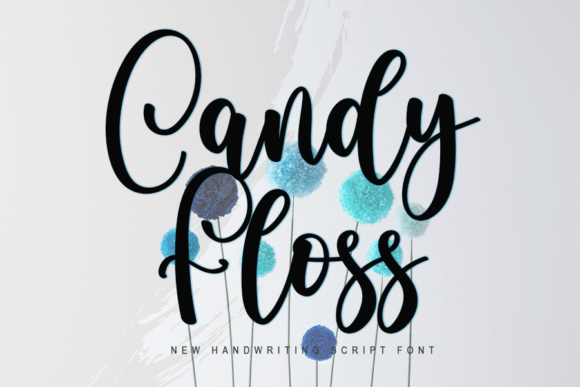
The Sweetest Font You’ll Ever Use: A Deep Dive into Candy Floss
I’ll never forget the time I was working on a wedding invitation project, and my client asked for a font that was “whimsical, yet elegant.” I scoured the internet, trying out font after font, but nothing seemed quite right. That was until I stumbled upon Candy Floss, a characterful and cute handwritten font that stole my heart. In this article, I’ll share my love for Candy Floss, its features, and how to make the most of it in your designs.
An Honest Review of Candy Floss
- ✨ Characterful and cute: Candy Floss is perfect for designs that require a soft, whimsical touch.
- ✅ PUA encoded: Easily access all the glyphs and ligatures, making it a breeze to use.
- 🎉 Perfect for celebrations: Weddings, birthdays, or any other special occasion, Candy Floss is the ideal font.
While Candy Floss is an amazing font, there are a few things to keep in mind:
- ⚠️ Limited use cases: While Candy Floss is perfect for celebrations, it might not be the best choice for more formal or corporate designs.
- 🤔 Legibility at small sizes: As with many script fonts, Candy Floss can be tricky to read at very small sizes.
The Story Behind Candy Floss
Candy Floss was designed with one goal in mind: to create a font that captures the magic of celebration days. Inspired by the sweet treats we enjoy on special occasions, Candy Floss is a font that’s both playful and elegant. Whether you’re designing wedding invitations or birthday cards, Candy Floss is the perfect choice.
A: PUA (Private Use Area) encoding allows designers to access a font’s glyphs and ligatures easily. This means you can use Candy Floss’s special characters without any hassle.
Q: Is Candy Floss suitable for body text?
A: While Candy Floss is a beautiful font, it’s best suited for headings and titles. For body text, you may want to choose a more legible font.